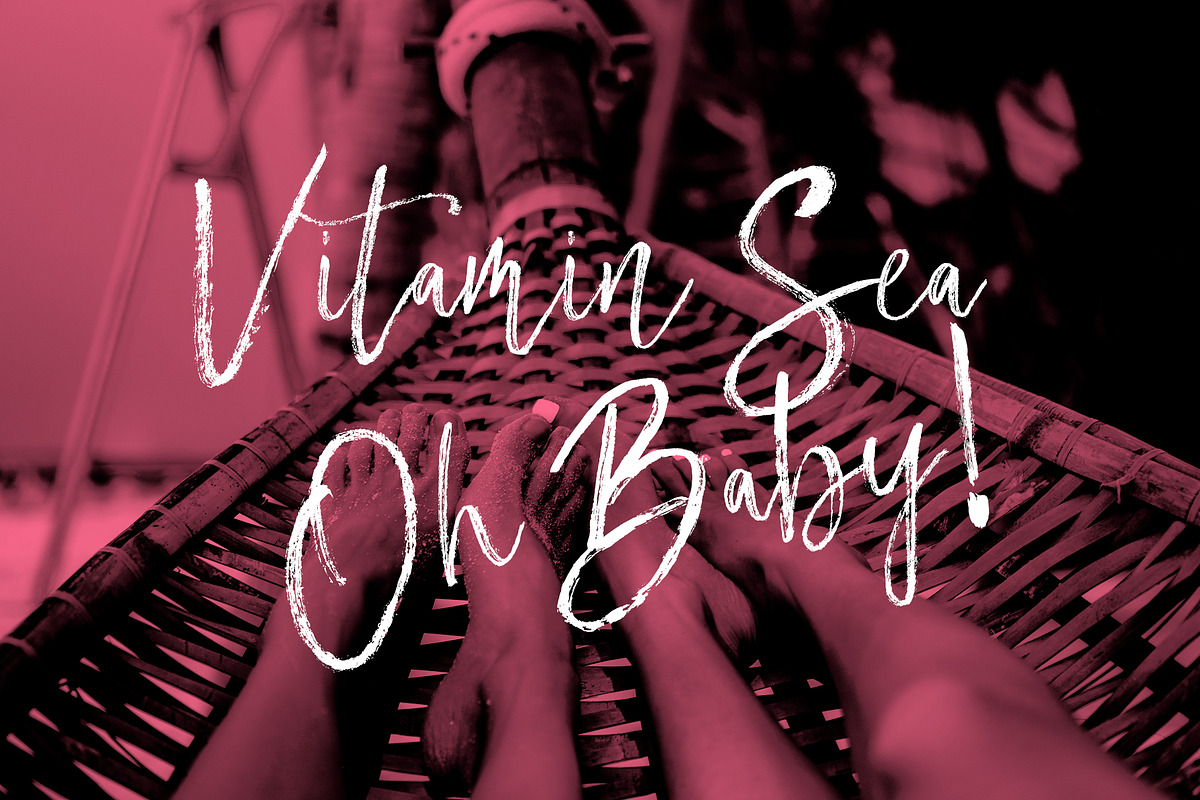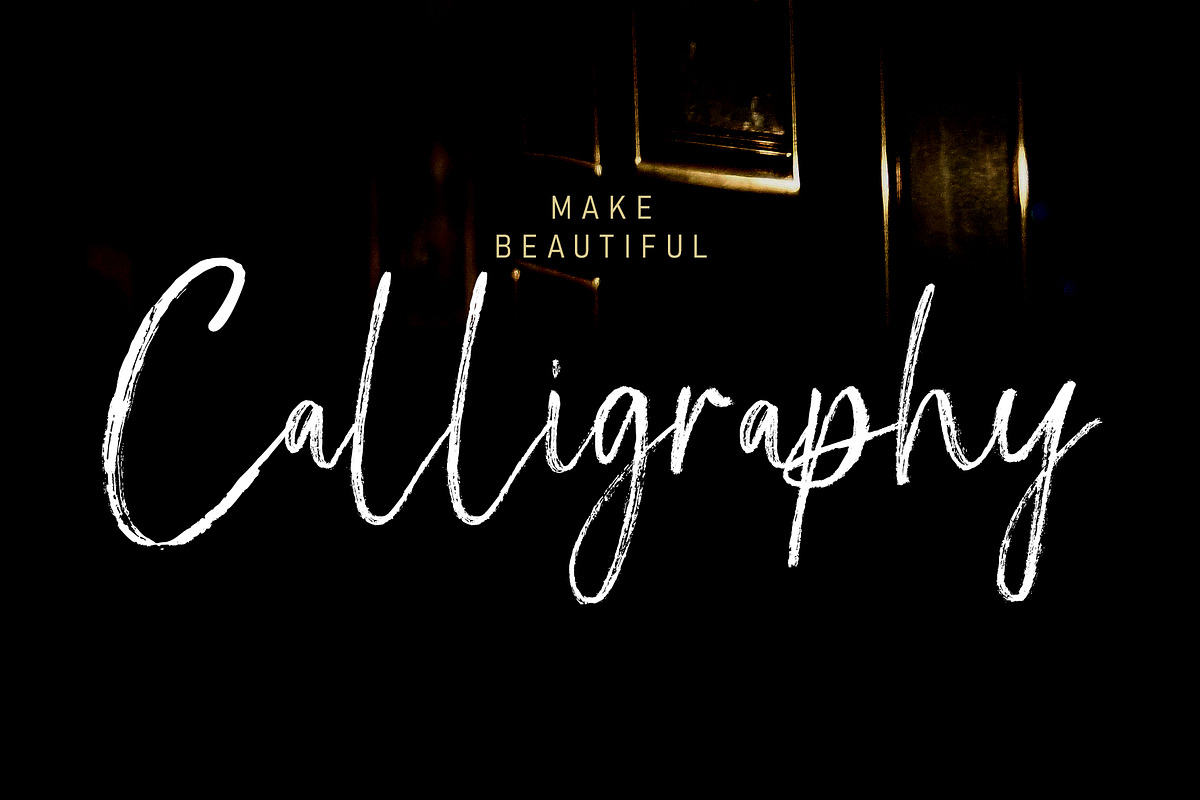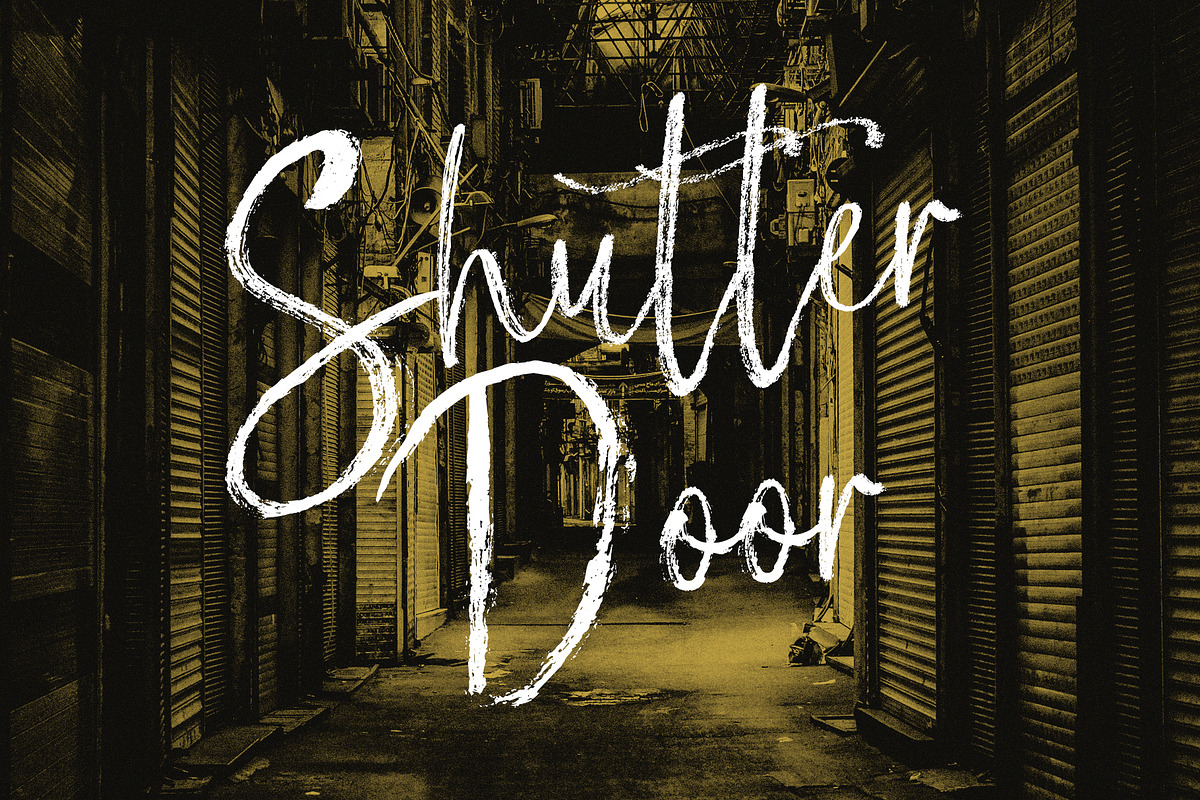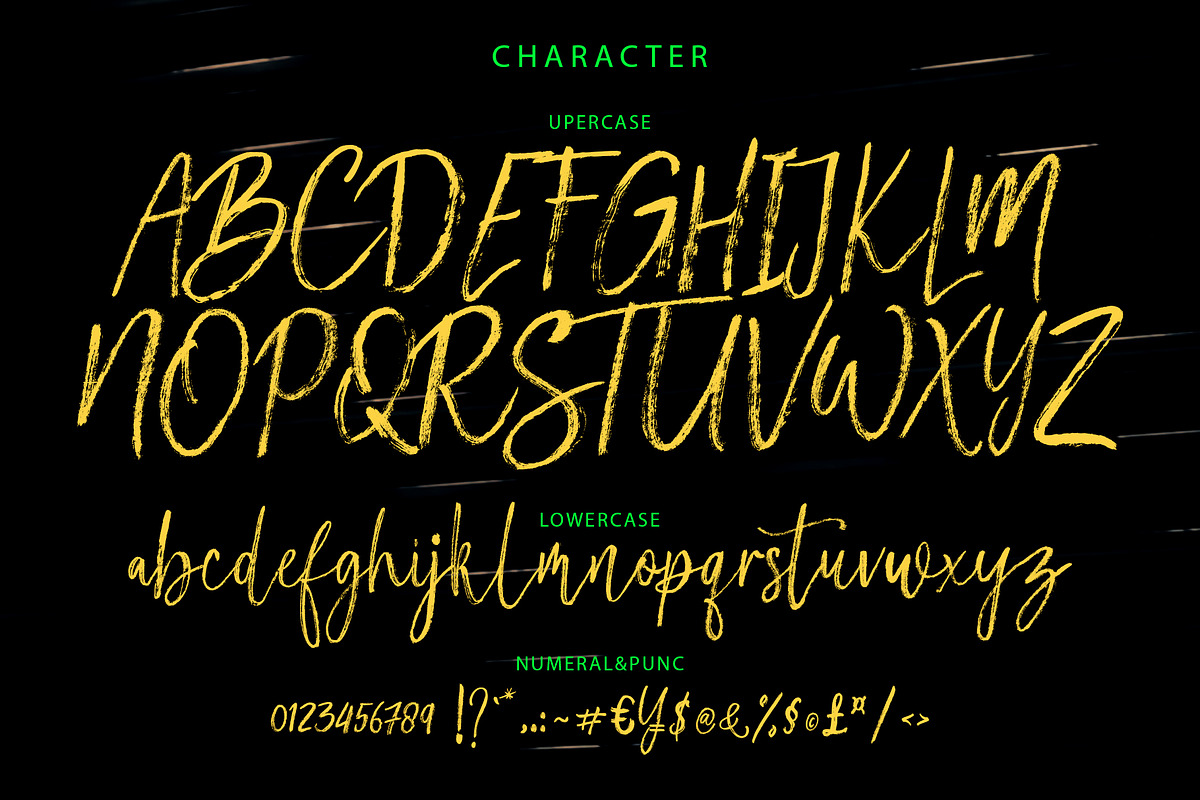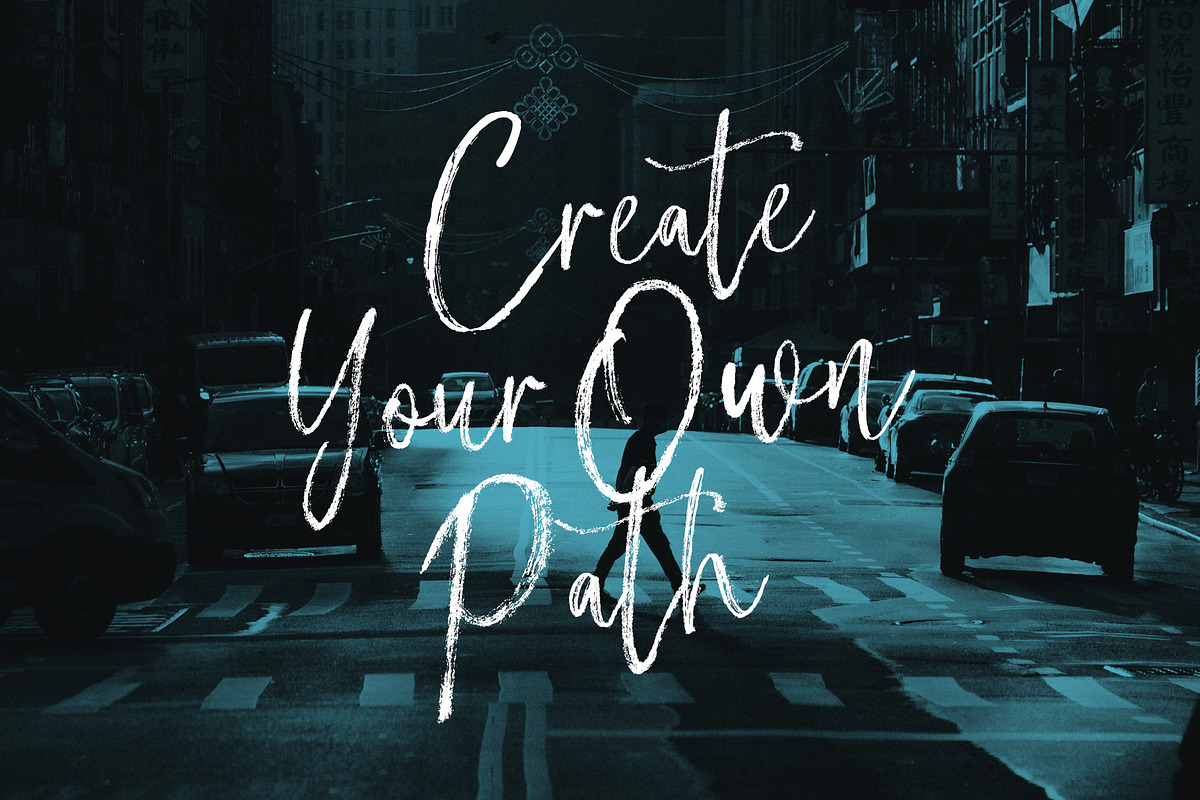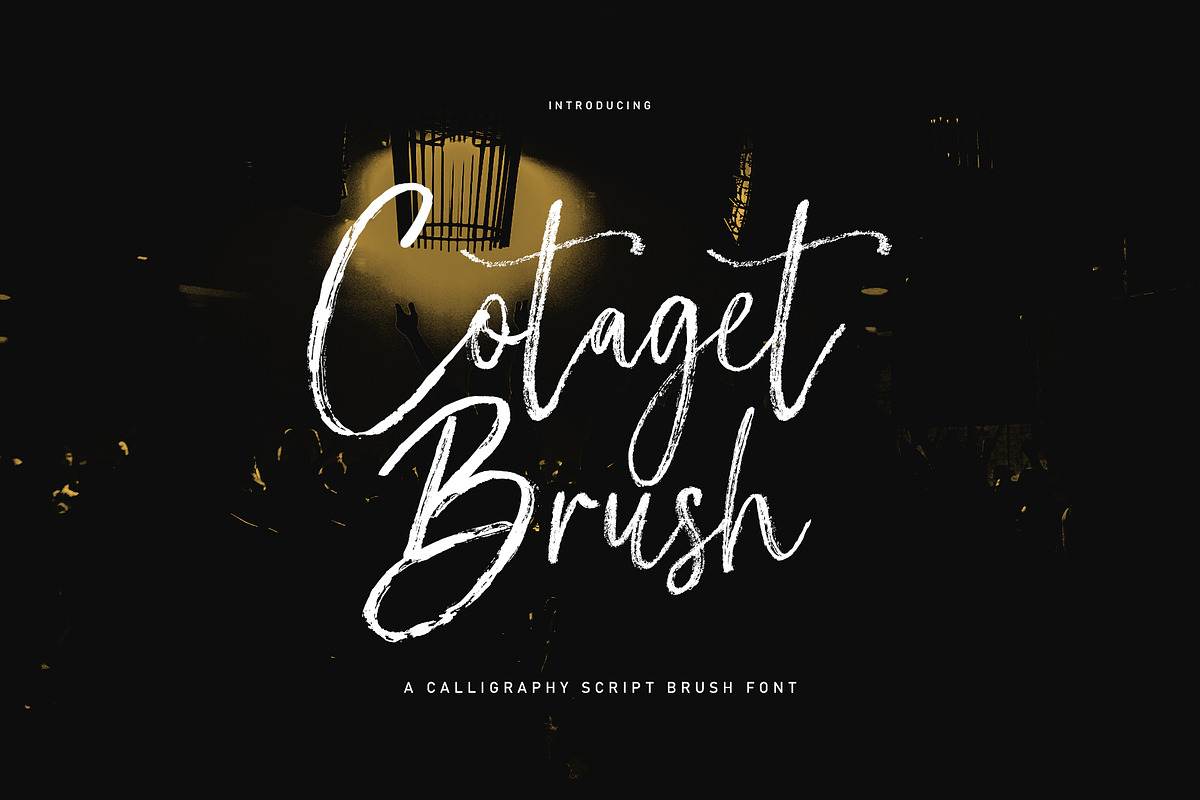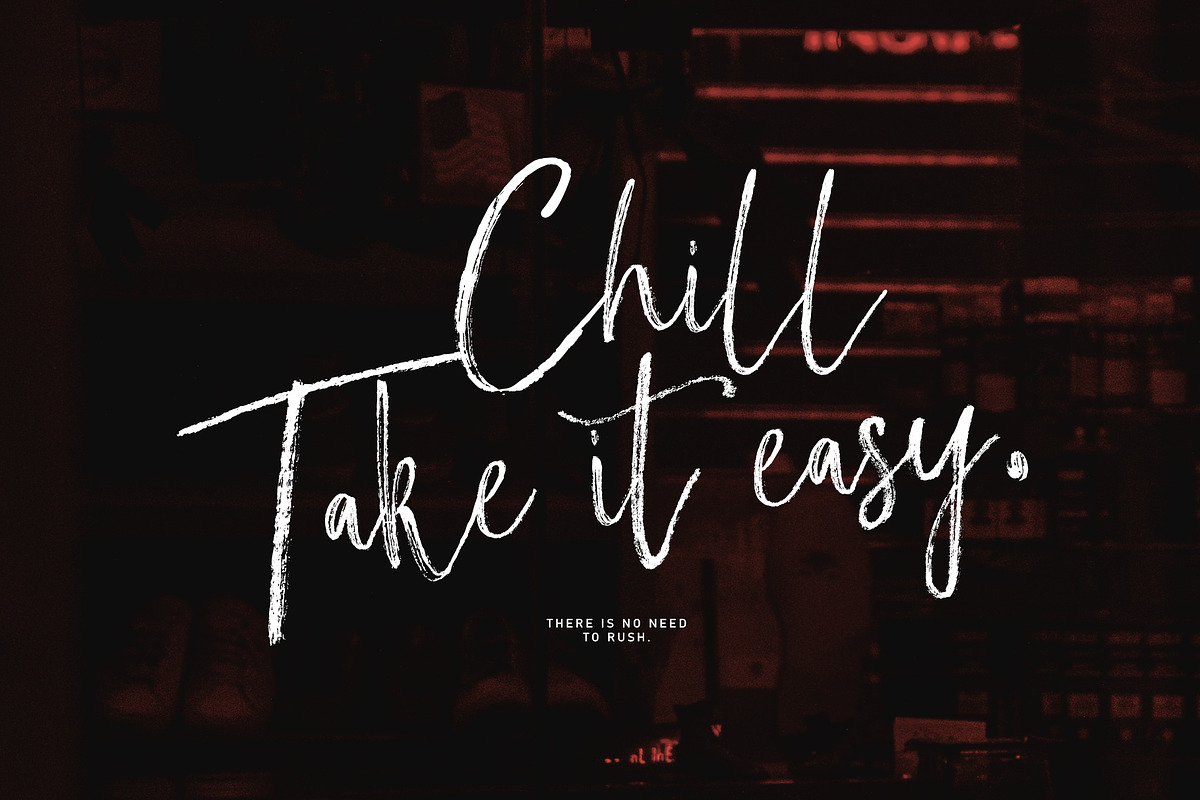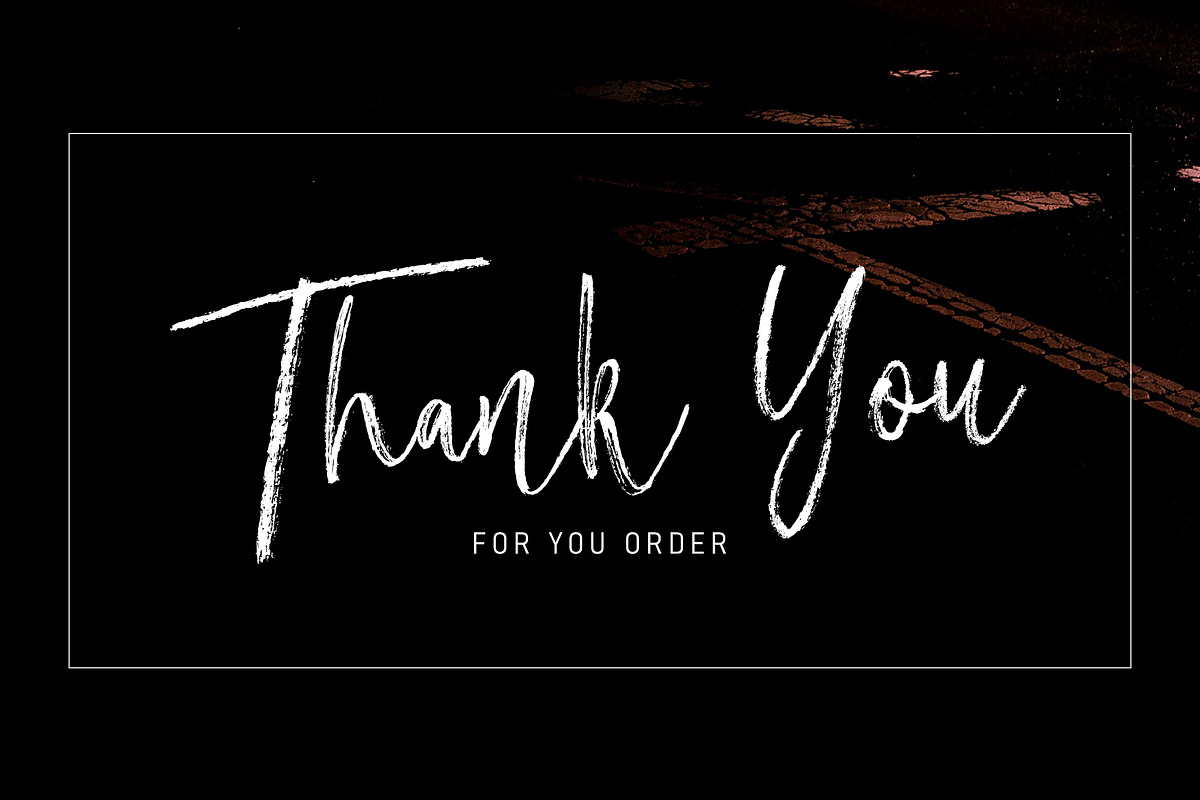
Cotaget Brush
Cotaget Brush is a manual written font to get the best texture for each letter. Each letter character will make your design strong and dazzling, while challenging the eyes. Each letter and symbol is simply painted using the best brushes and ink.